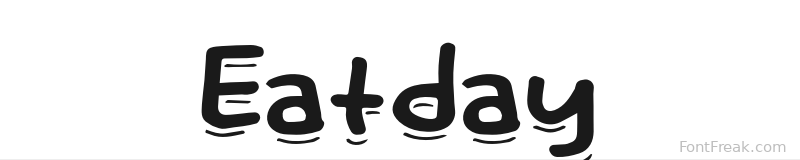
Eatday
About Eatday
The Eatday font by Syaf Rizal is a playful and expressive display typeface that stands out for its unique handwritten style. This font exudes a casual charm, making it an ideal choice for projects that require a friendly and inviting touch. Characterized by its irregular stroke weight and lively curves, the Eatday font captures attention while maintaining readability. The contrast in thickness between the letters adds a dynamic feel, while the generous spacing enhances legibility, making it suitable for both digital and print media.
Eatday is particularly well-suited for a variety of creative applications. It shines in restaurant menus, where its whimsical character can convey a sense of warmth and hospitality. Additionally, it's perfect for branding materials aimed at food-related businesses, giving a fresh and approachable vibe to logos and promotional content. The font also works wonderfully in social media graphics, helping content creators engage audiences with its fun and casual aesthetic. Wedding invitations can benefit from its charming flair, offering a touch of personality that complements the celebration.
The target audience for the Eatday font includes graphic designers, small business owners, and content creators who are looking to inject a sense of fun into their projects. Whether it’s for a blog, a food-related campaign, or a creative business, this font caters to those who appreciate a unique touch in their designs.
What truly sets the Eatday font apart is its ability to convey personality without compromising on legibility. The combination of its lively strokes and approachable style makes it a versatile choice for a wide range of projects. For those interested in adding a playful twist to their design work, the Eatday font free download offers an accessible option to elevate their creative endeavors.